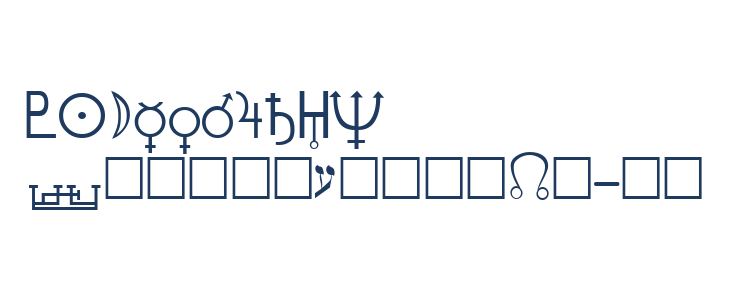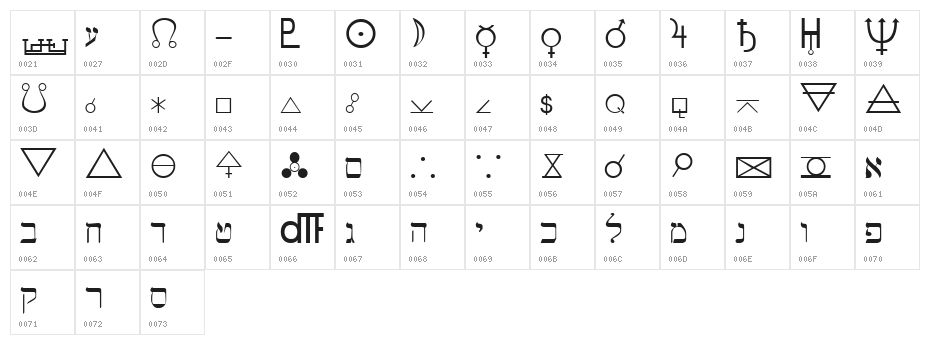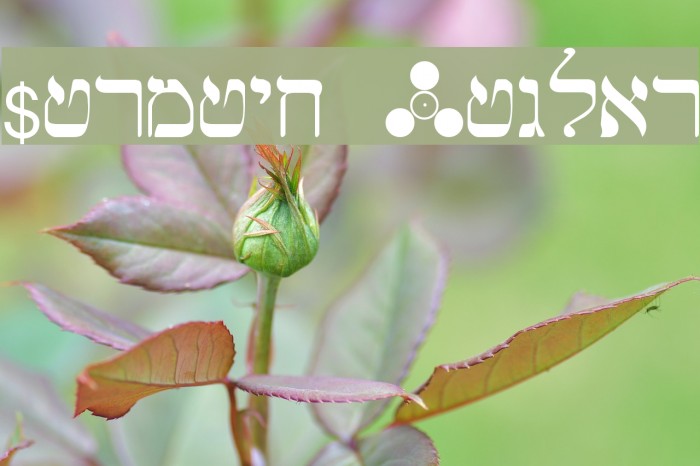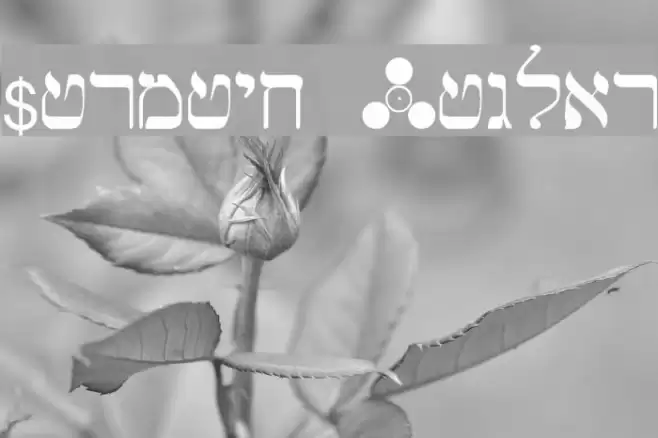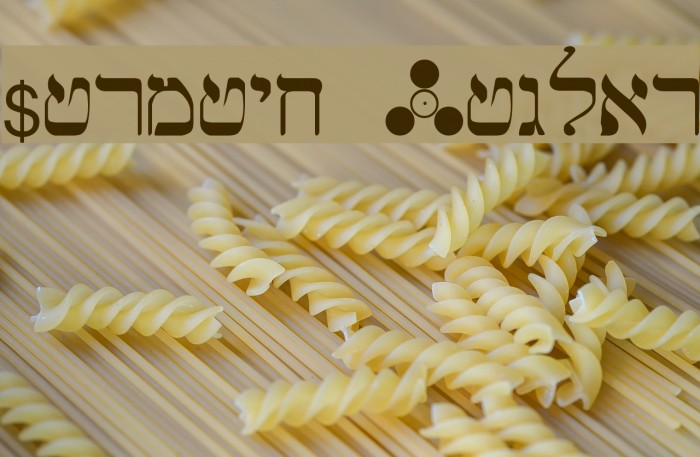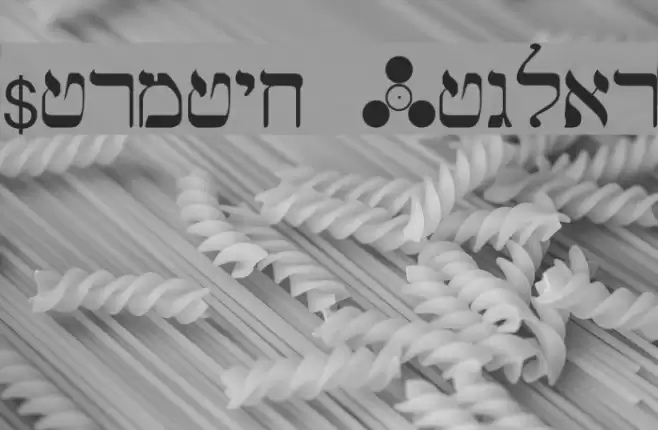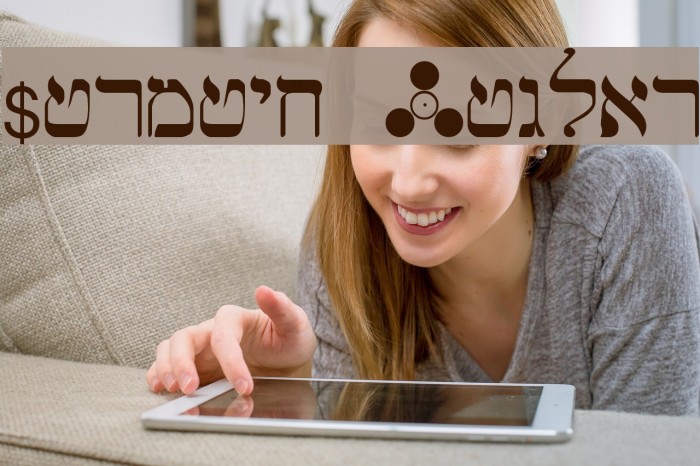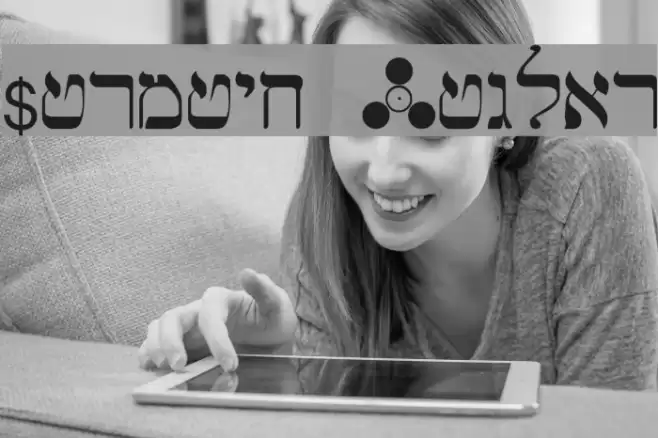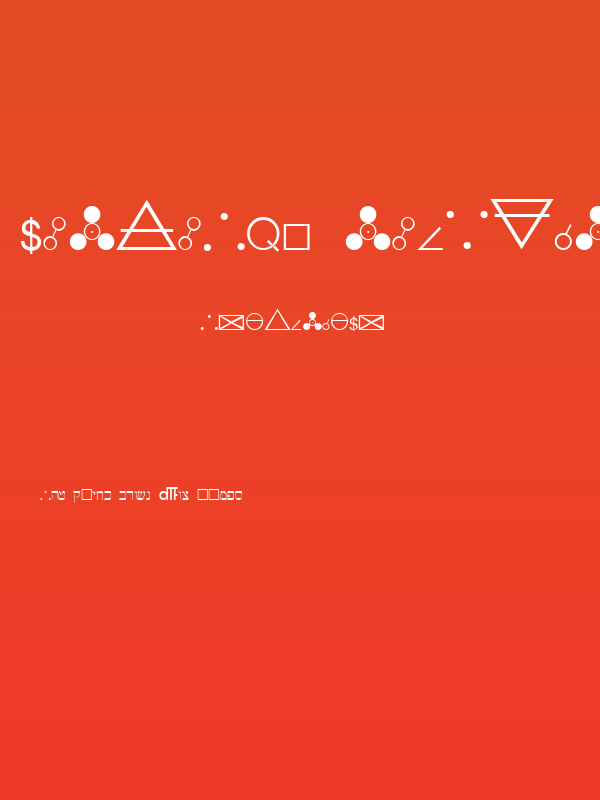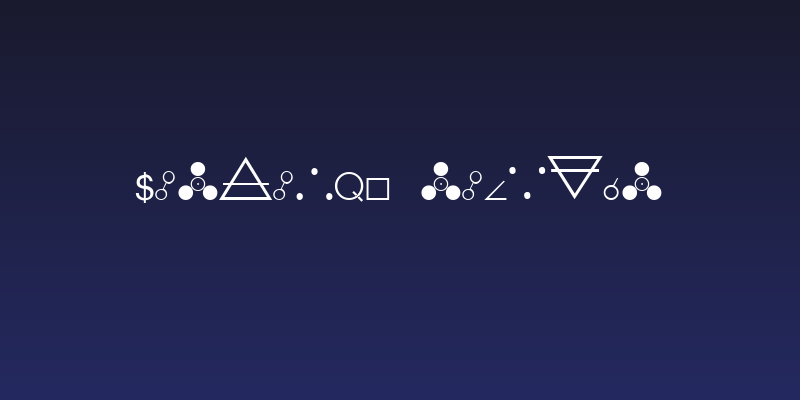
Hermetic Regular Font
Hermetic Regular Description
This font features a collection of esoteric and mystical symbols, incorporating elements from alchemical, astrological, and other arcane traditions. The characters are highly decorative, with intricate designs that evoke a sense of mystery and ancient wisdom. The symbols include a variety of geometric shapes, celestial bodies, and abstract forms, each meticulously crafted to convey a unique meaning. The overall aesthetic is both enigmatic and captivating, making it suitable for projects that require a touch of the mystical or the occult.
| Overall Style | Mystical, Esoteric, Decorative |
| Use Case | Logos, Decorative elements, Themed designs |
| Proposed Projects | Ideal for use in fantasy book covers, mystical-themed posters, tarot card designs, and any project requiring an arcane or mysterious aesthetic. |